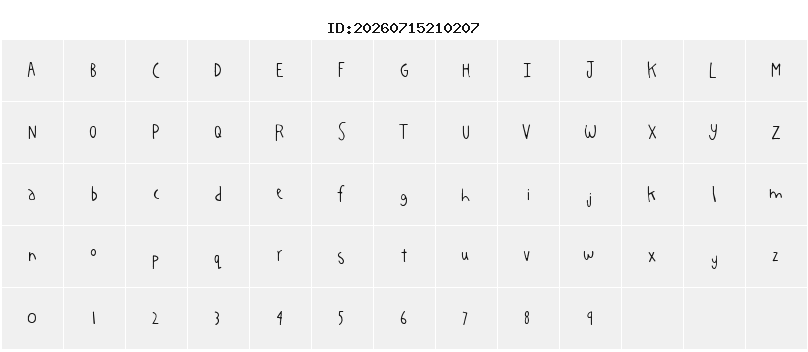
Auburn Preview
• Font Name: Auburn
• Full Font Name: Auburn
About Auburn.ttf
Auburn.ttf is a modern, elegant sans-serif font designed for ultimate readability and visual harmony. Perfect for branding, headlines, web design, and print materials.